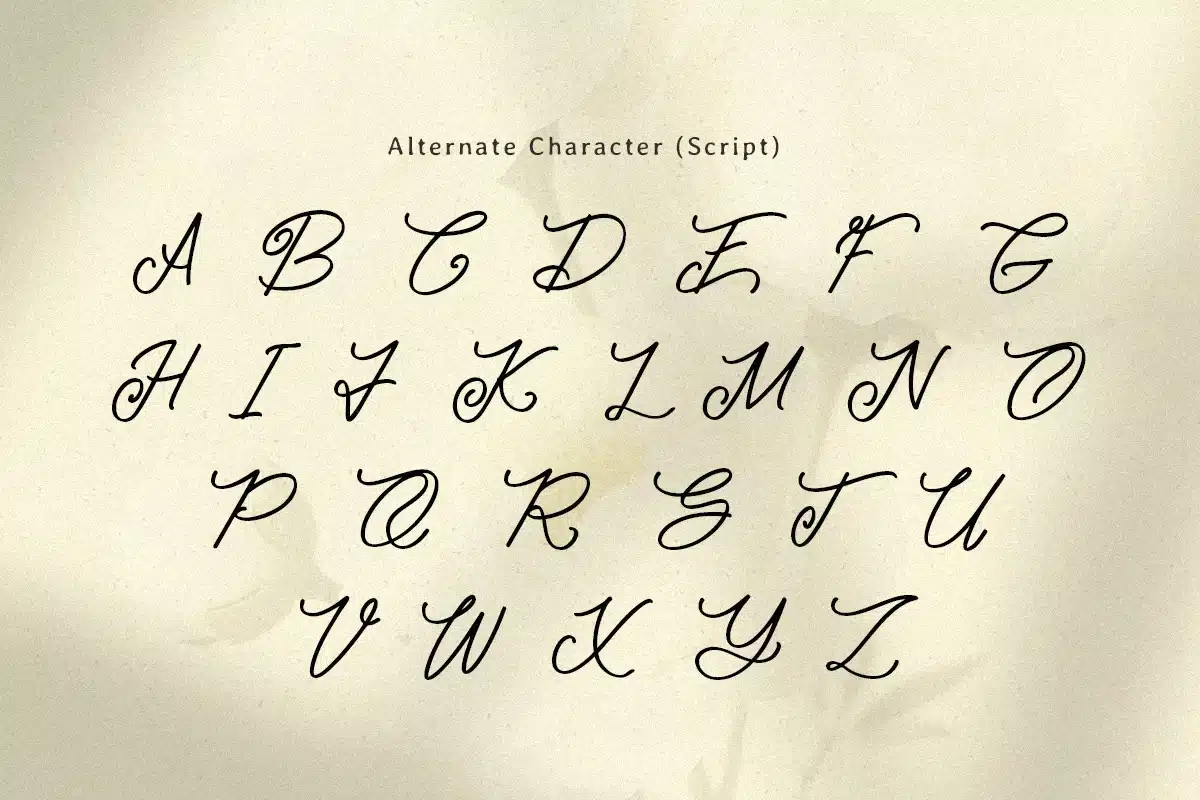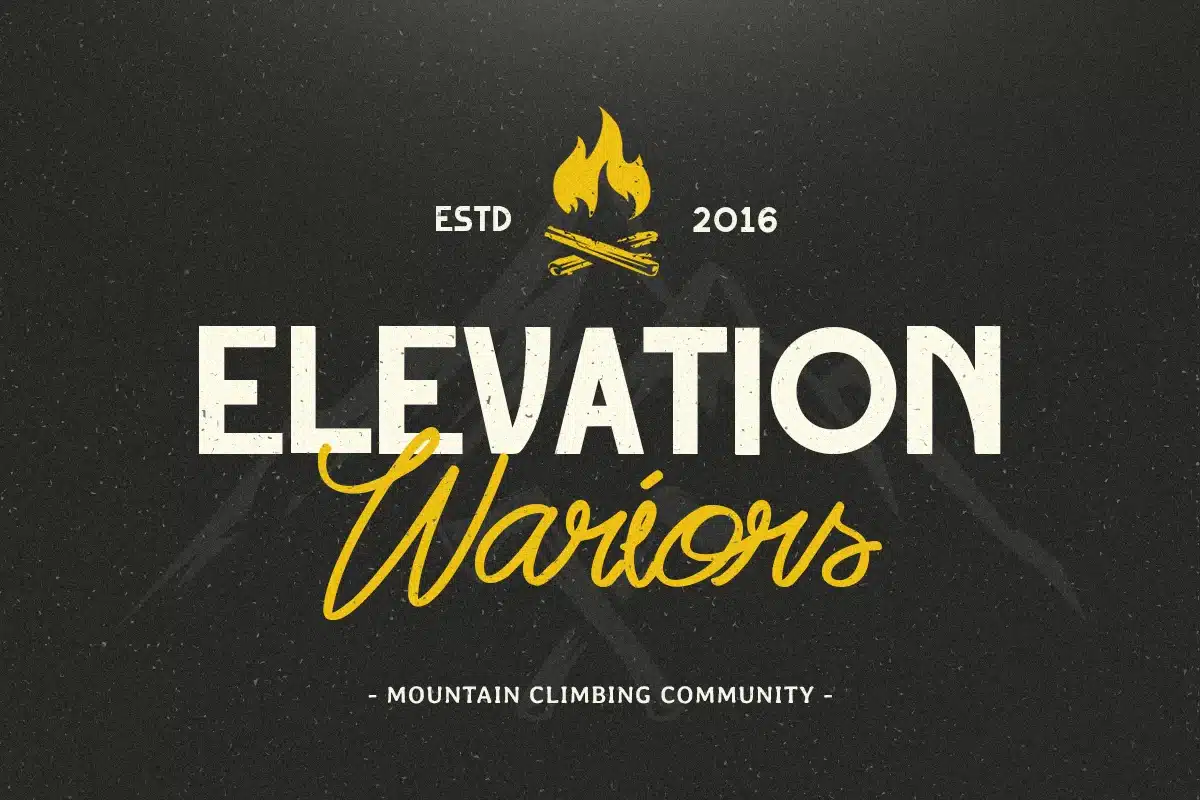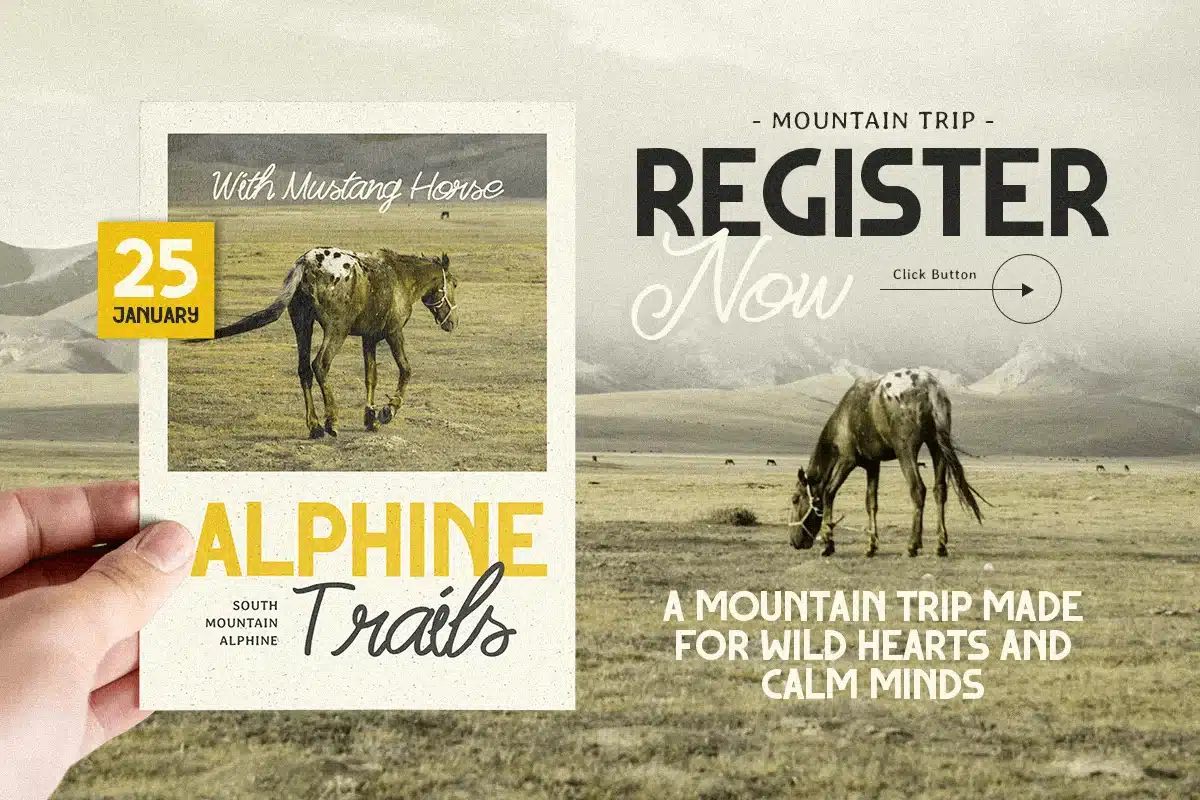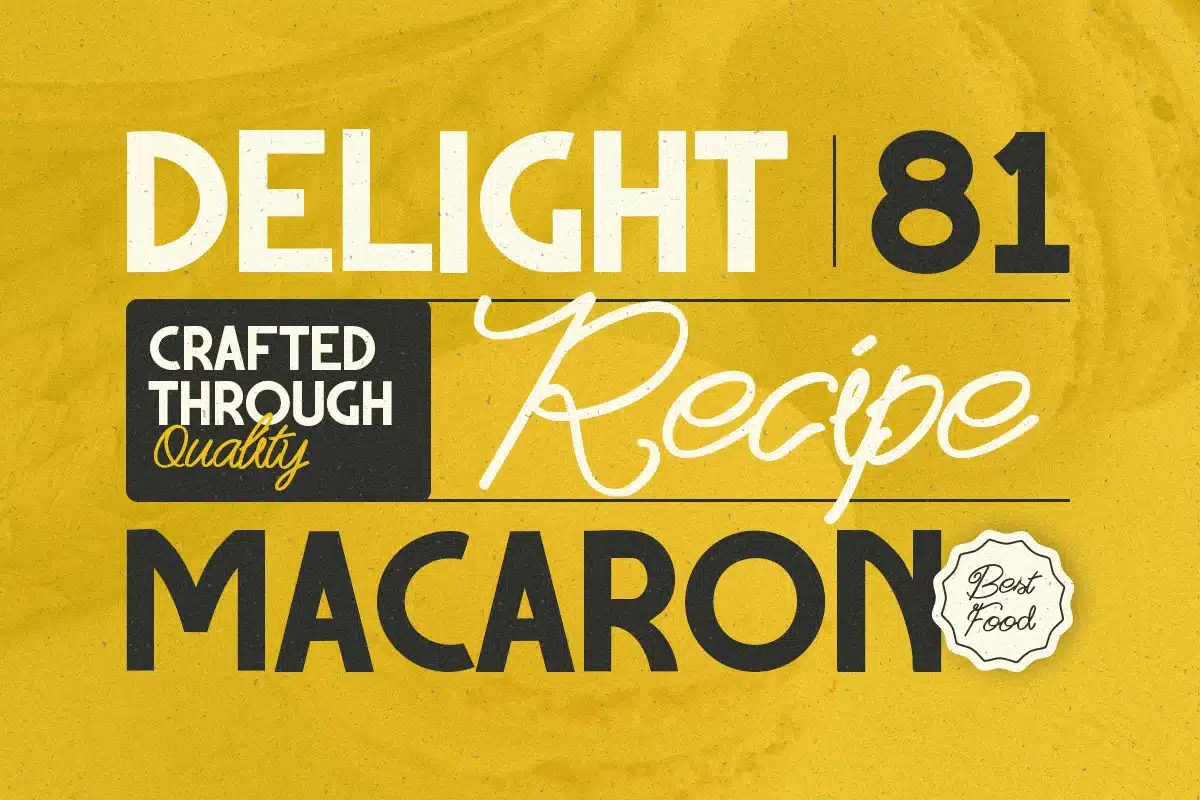
Enjoy Paradise – Vintage Handwritten Font Duo
Enjoy Paradise is a vintage handwritten font duo designed to capture the warmth of retro lettering with expressive handcrafted charm. Combining two complementary handwritten styles, this duo creates a nostalgic visual tone that feels classic, relaxed, and full of personality—perfect for projects that need timeless vintage appeal.
Built for standout branding and display typography, Enjoy Paradise works beautifully across logos, product labels, packaging, posters, signage, café menus, invitations, website headers, and social media graphics. The pairing gives you more flexibility to build contrast and hierarchy, allowing one style to deliver bold retro impact while the other adds a softer handwritten accent.
Whether you’re creating a heritage-inspired brand identity, designing rustic promotional materials, building tropical vintage packaging, or crafting nostalgic editorial visuals, Enjoy Paradise provides a versatile duo foundation that makes every layout feel authentic, memorable, and rich with old-school charm.
Inspiration Behind Enjoy Paradise
Enjoy Paradise is inspired by classic handwritten signage, retro travel graphics, and vintage branding aesthetics—where natural strokes and expressive rhythm create a warm, nostalgic feeling. The design focuses on handcrafted character and balanced contrast to support timeless branding and decorative display typography with a relaxed vintage mood.
Enjoy Paradise Font Features:
- Vintage handwritten duo with complementary retro-inspired styles
- Prepared with two styles: regular sans serif and script handwritten
- Perfect for logos, labels, packaging, and nostalgic branding
- Expressive handwritten rhythm for authentic classic character
- Flexible pairing for strong hierarchy and visual contrast
- OpenType features for polished professional typesetting
- Vintage logos, retro wordmarks, and heritage brand identity systems
- Product packaging, labels, menus, and rustic promotional layouts
- Posters, signage, invitations, and decorative headline design
- Café branding, tropical concepts, and nostalgic visual campaigns
- Social media graphics, website headers, and classic-style marketing assets
Bring nostalgic handcrafted charm to your visuals with ENJOY PARADISE—a vintage handwritten duo made for timeless retro branding. ✨